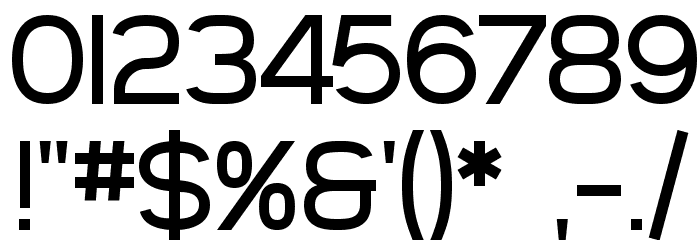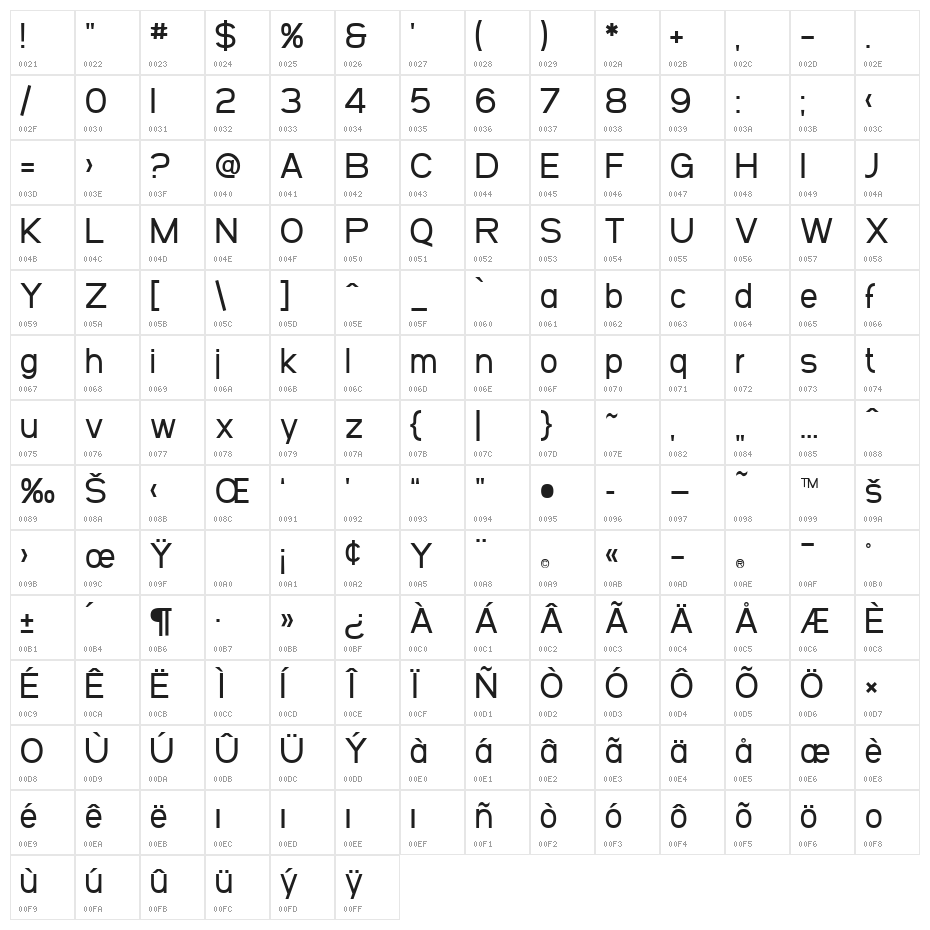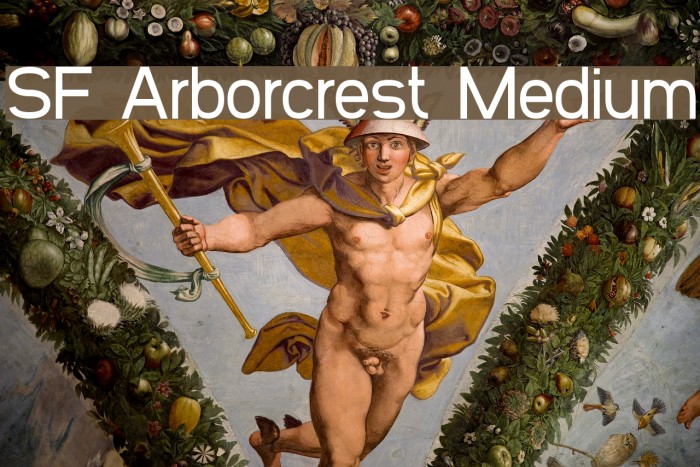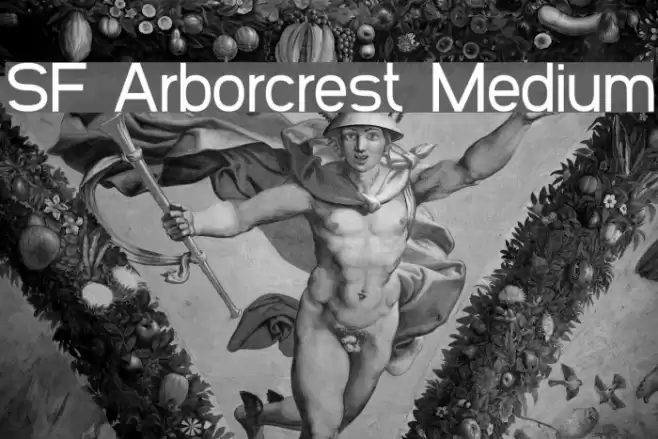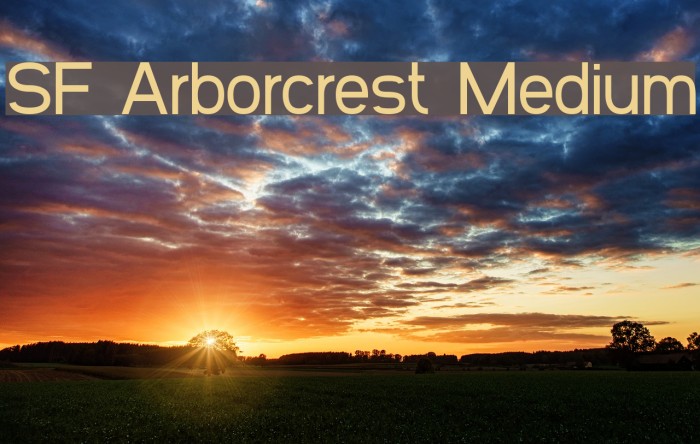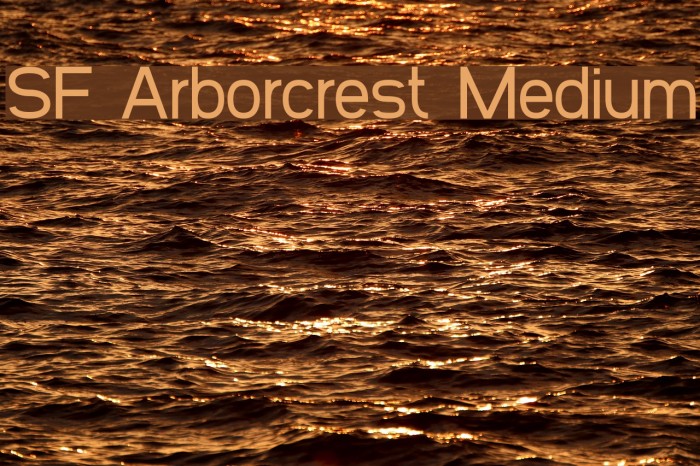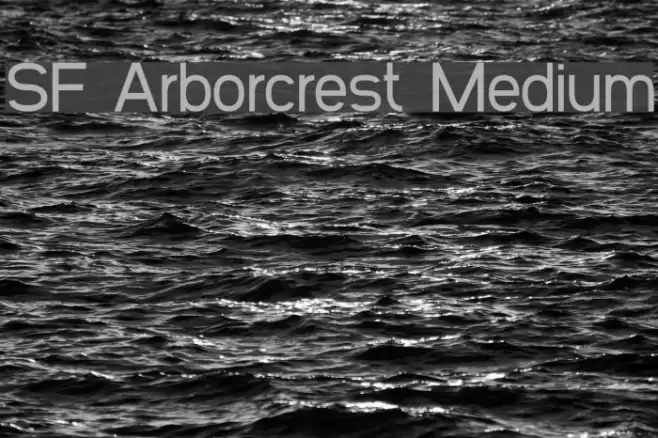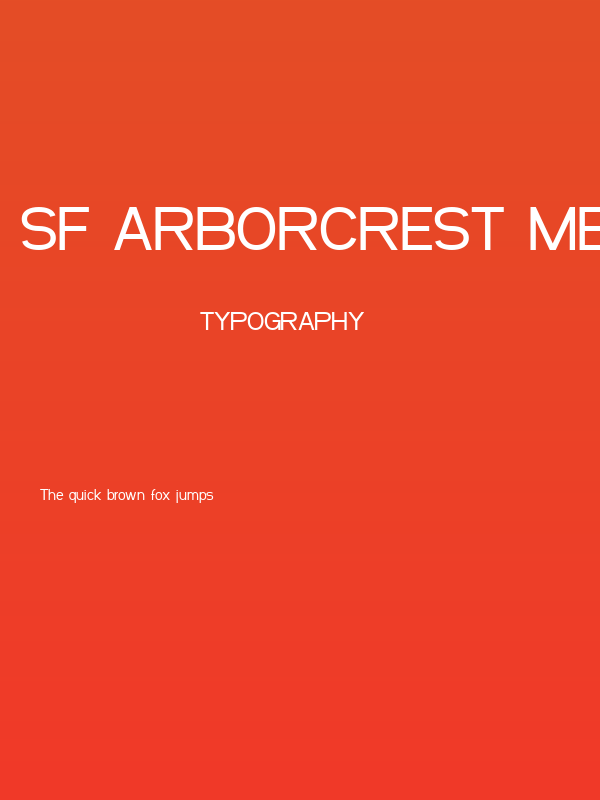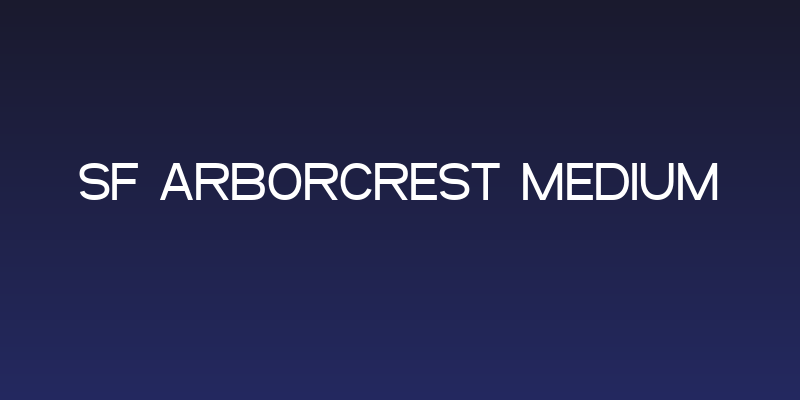
SF Arborcrest Medium Font
SF Arborcrest Medium Description
This font features a clean and modern sans-serif design, characterized by its uniform stroke width and geometric shapes. The uppercase letters are bold and assertive, while the lowercase letters maintain a consistent and harmonious appearance. The numerals are clear and easy to read, making them suitable for various applications. Special characters are well-defined, adding to the font's versatility. The overall design is minimalistic, emphasizing clarity and readability.
| Proposed Projects | Ideal for branding, web design, advertising, and editorial projects where clarity and modernity are essential. |